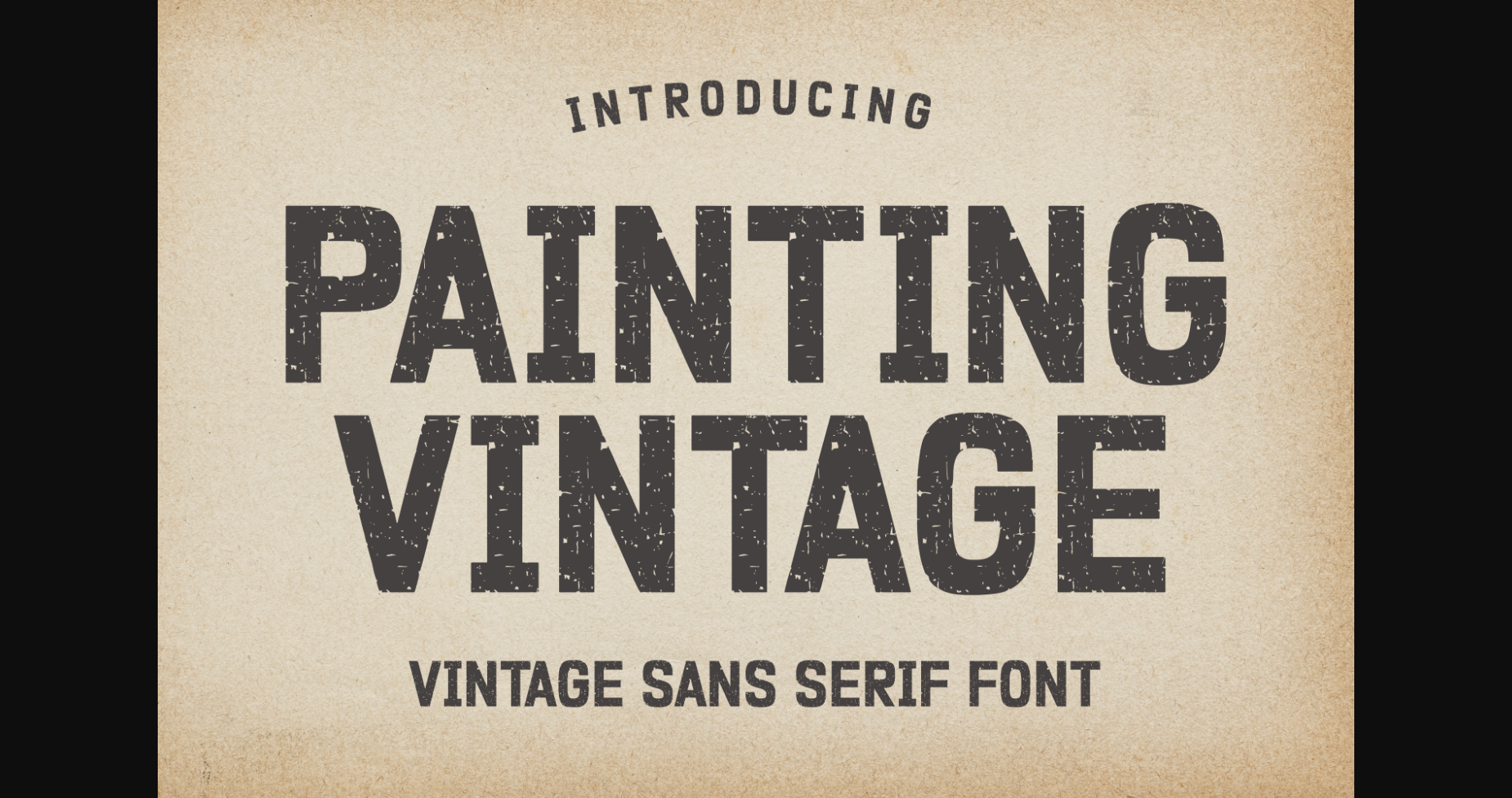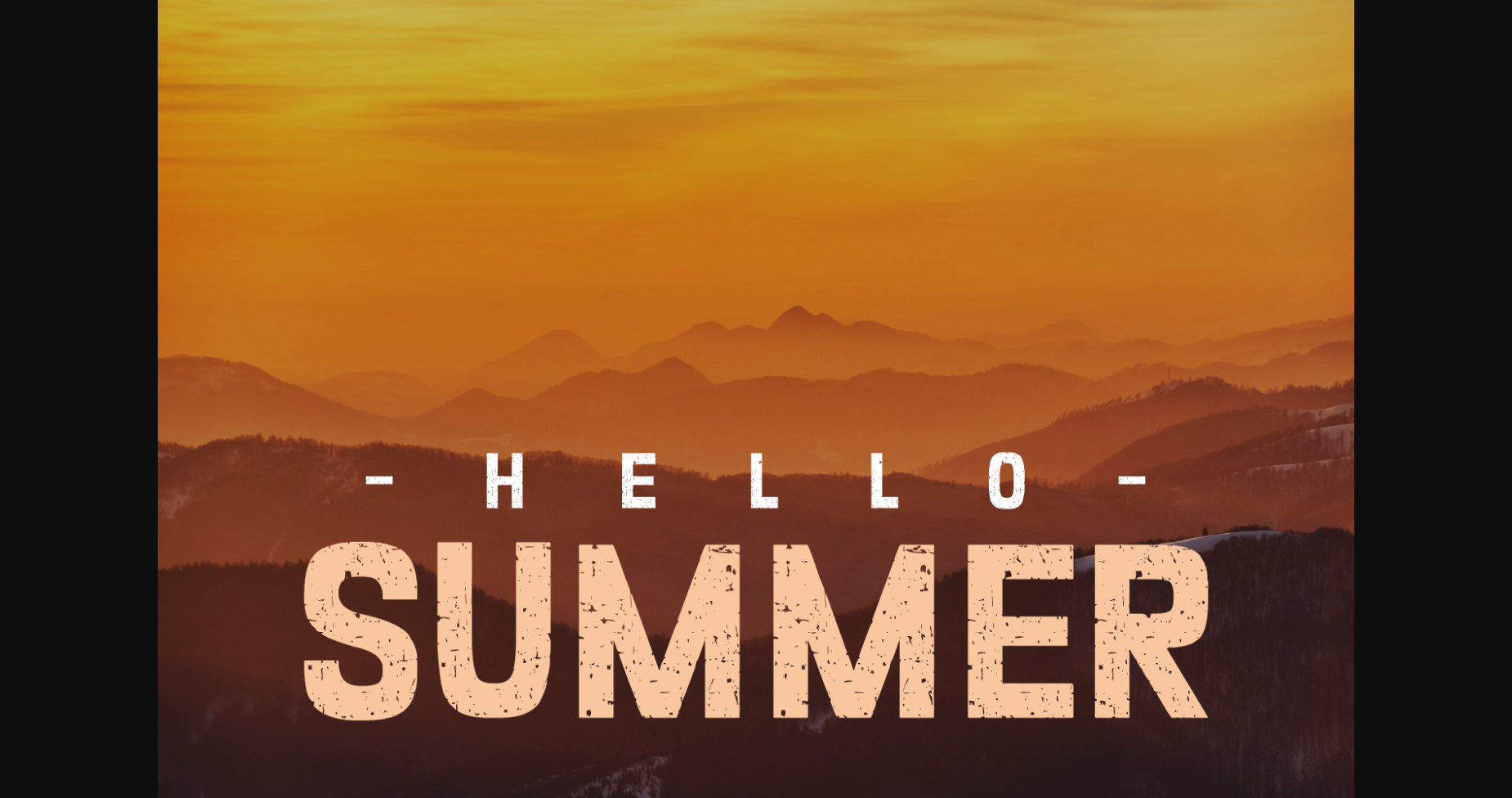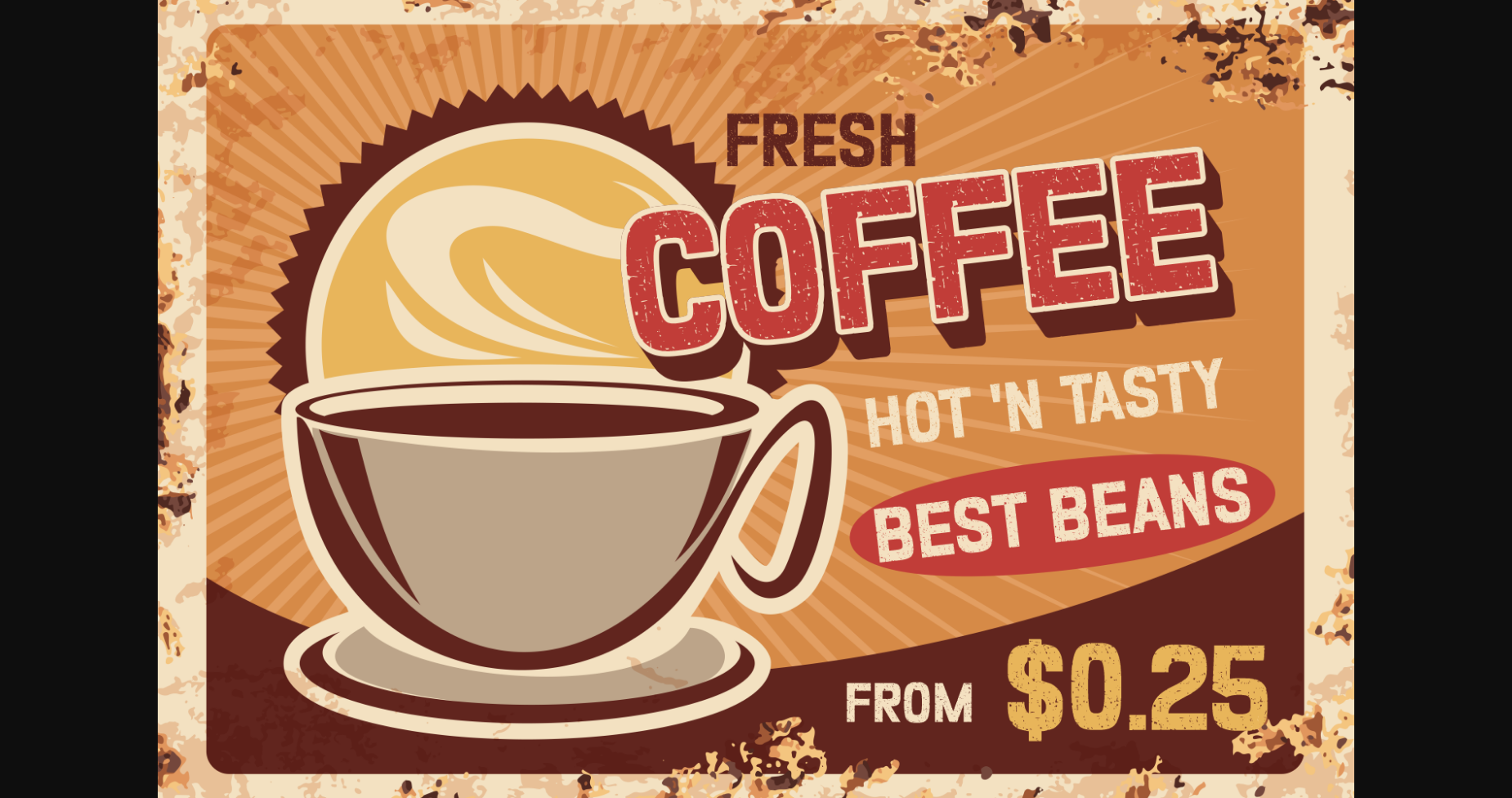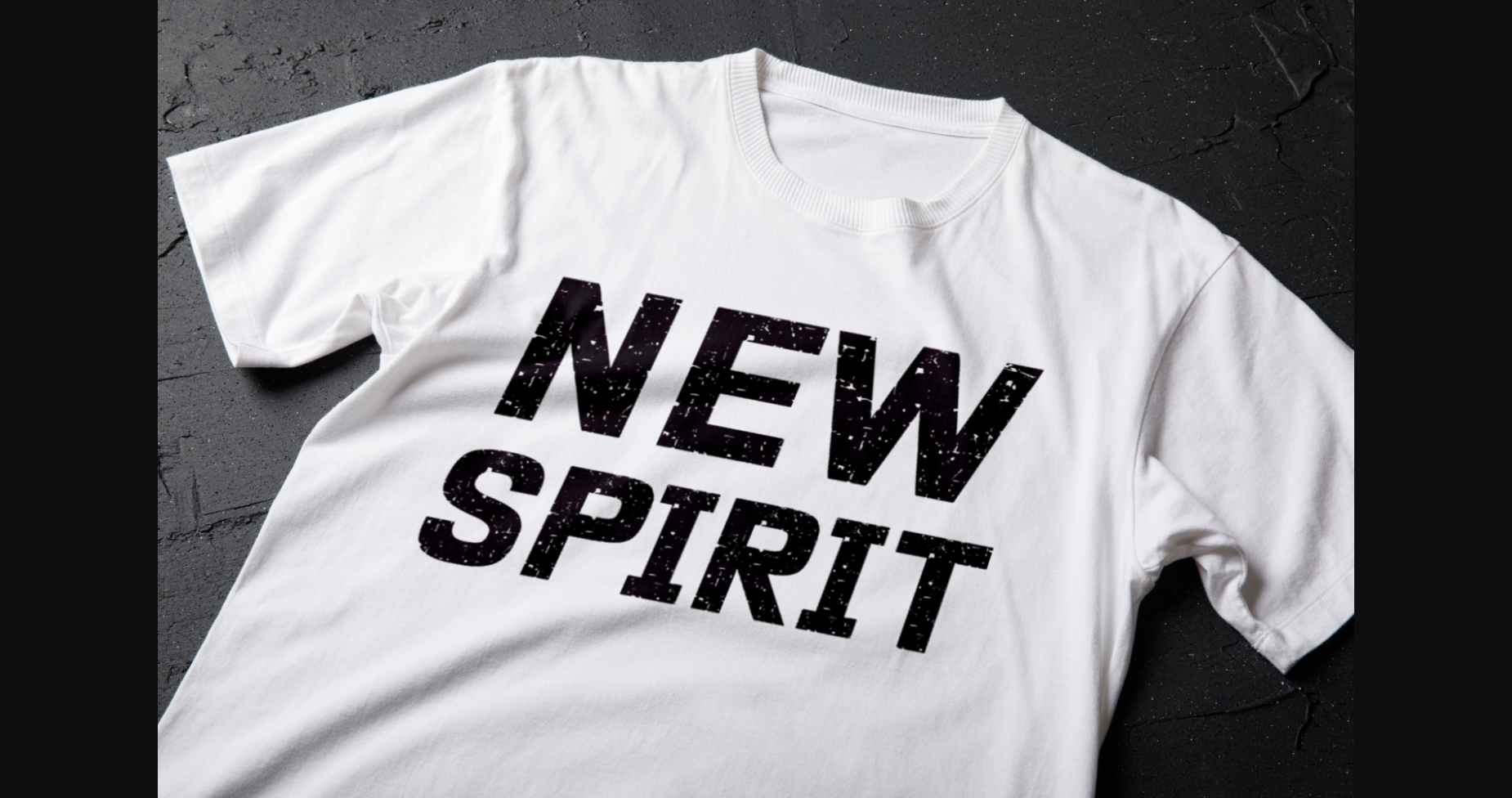
Painting Vintage Font
About Painting Vintage Font
Painting Vintage has a modern style with a touch of creative ideas that is very suitable to be applied anywhere that requires creative ideas. Use it to add vintage and mystique flavor to any design! It’s ready and Perfectly fit for your logo designs, headline, music projects & social media posts, event posters, brand imagery, product packaging, quotes, merchandise, etc.